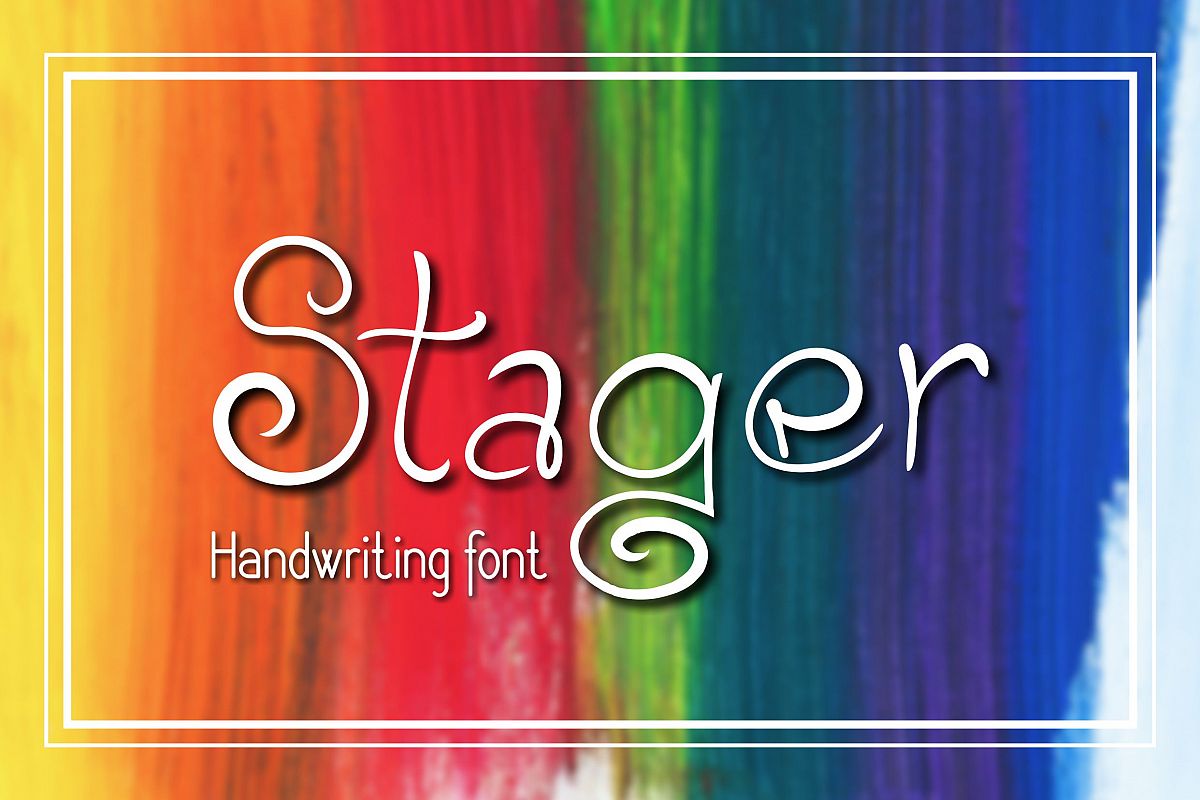
Stager Font
Stager
Stager Font with nice handwriting style perfect for many projects such as quotes, branding, invitations, advertisements, product packaging, posters, labels etc.
Stager Font